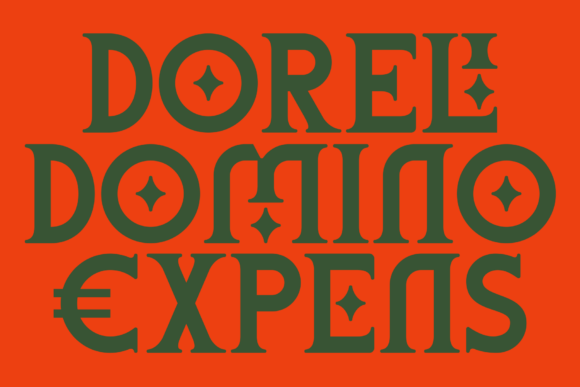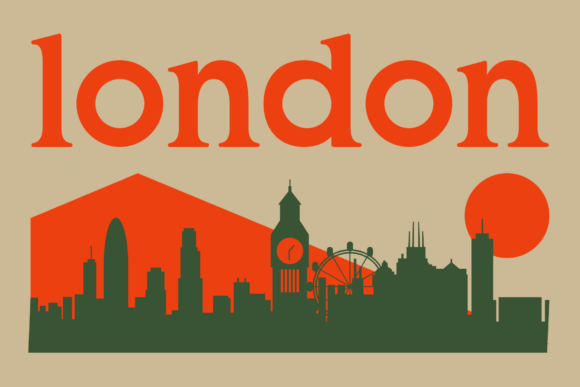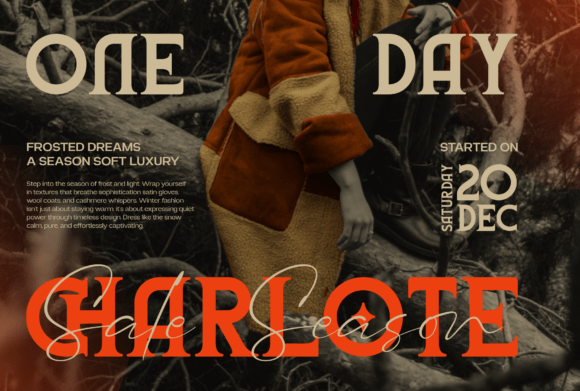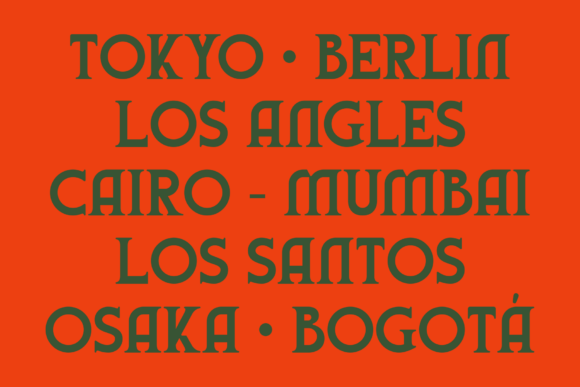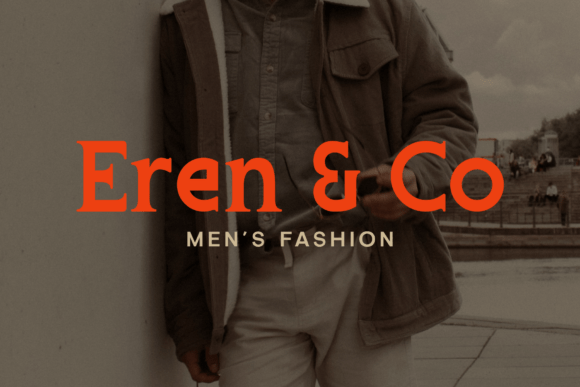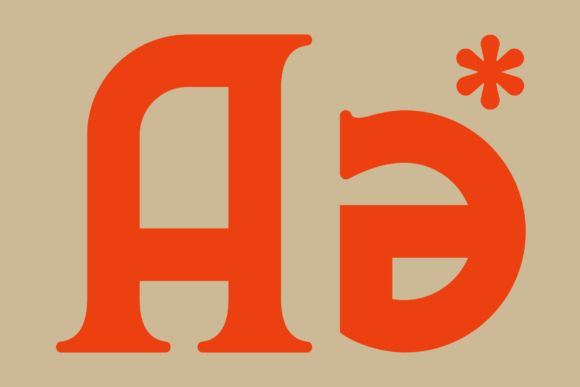
Introduction to Mishca Font
As designers, we’ve all been there – staring at a blank page, desperate for that perfect font to bring our creative project to life. It’s the moment of truth, where a well-chosen typeface can elevate our design from ordinary to extraordinary. And that’s exactly what the Mishca Font does – it’s a game-changer.
With its unique blend of bold geometry and whimsical details, the Mishca Font is a design resource that’s hard to resist. Its sharp serifs and curvy letterforms evoke a sense of vintage elegance, while its diamond-shaped inner details add a touch of modern sophistication. Whether you’re working on a branding project, creating a poster, or designing editorial content, the Mishca Font is the perfect choice to capture attention and deliver a bold statement of creativity and character.
Key Features of Mishca Font
- High-quality, professional design suitable for various creative projects.
- Includes a range of glyphs and characters, including Latin, Cyrillic, and Greek scripts.
- High-resolution design, ideal for use in print and digital media, including signage, logos, and branding materials.
- Supports a wide range of languages, making it a versatile design resource for global projects.
Honest Review: Mishca Font
I recently stumbled upon the Mishca Font, and I must say it’s a fantastic addition to any designer’s toolkit. As a design resource, it’s perfect for creative projects that require a touch of elegance and sophistication.
- The Mishca Font offers a high-quality, modern design that’s perfect for corporate branding, advertising, and editorial content.
- The Mishca Font may not be suitable for projects that require a more playful or whimsical tone, as its elegant design may come across as too formal.
- The font’s limited character set may not be ideal for designers who need to typeset extensive blocks of text.
Overall, I’m impressed with the Mishca Font’s versatility and high-quality design. While it may have some limitations, it’s an excellent choice for designers who want a professional and elegant font for their creative projects.
The Mishca Font is perfect for creating professional-looking designs for business cards, brochures, and social media graphics. Its high-quality design makes it ideal for any creative project that requires a touch of elegance and sophistication.